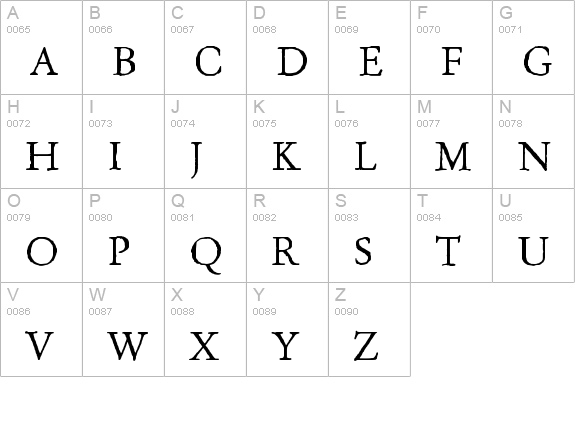
Old Claude LP Std is a timeless and elegant font that exudes a sense of history and sophistication. With its classic serifs and vintage charm, this font is perfect for adding a touch of old-world elegance to your designs. Whether you're working on a vintage-inspired project or looking to add a touch of class to your branding, Old Claude LP Std is sure to impress. Best of all, Old Claude LP Std is available for free download at FontsMarket.com. This means that you can easily access this beautiful font and start using it in your projects right away. Don't miss out on the opportunity to add a touch of timeless elegance to your designs with Old Claude LP Std. Download it now and see the difference it can make in your work.